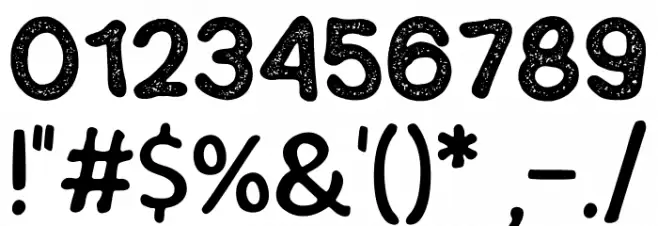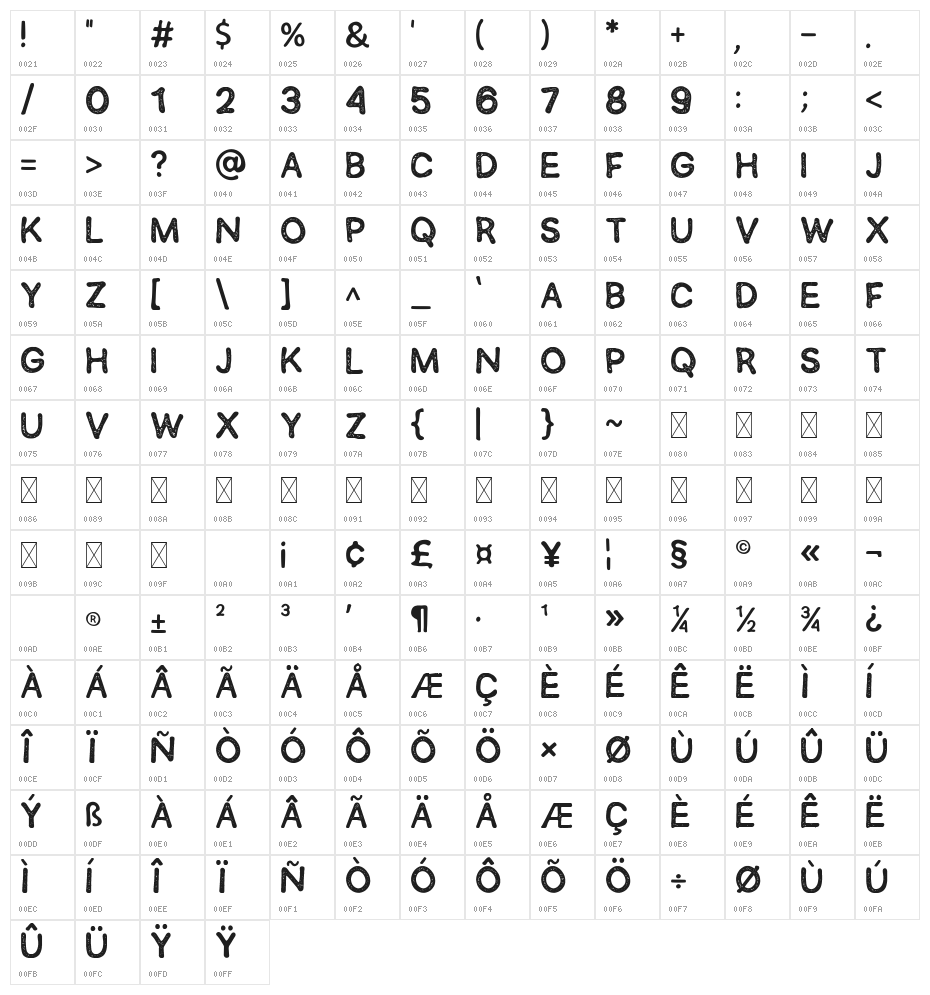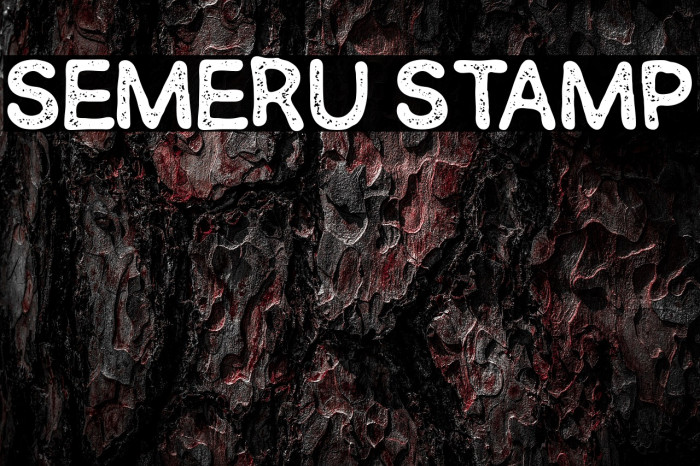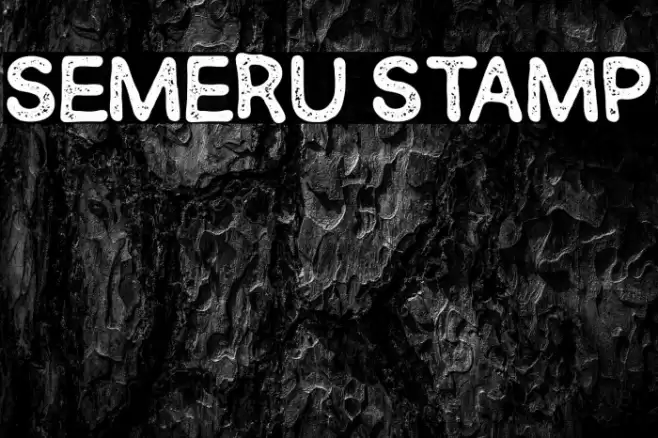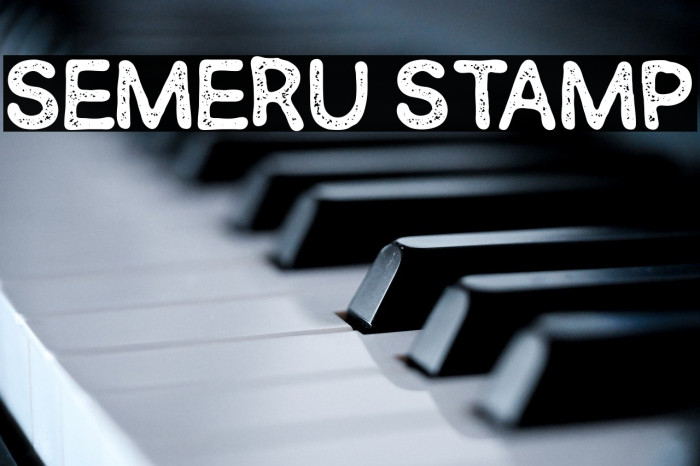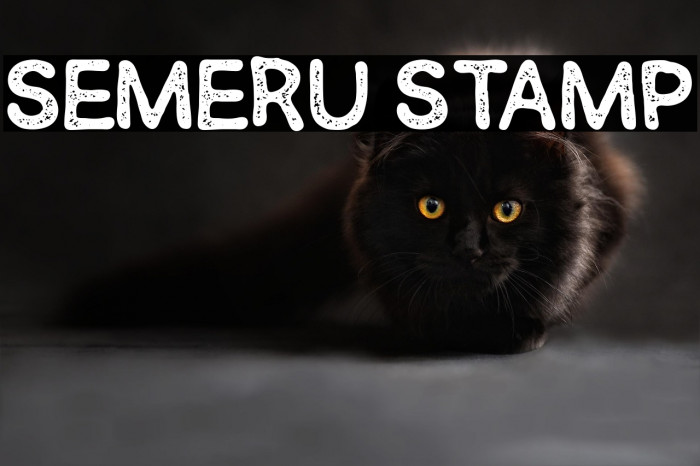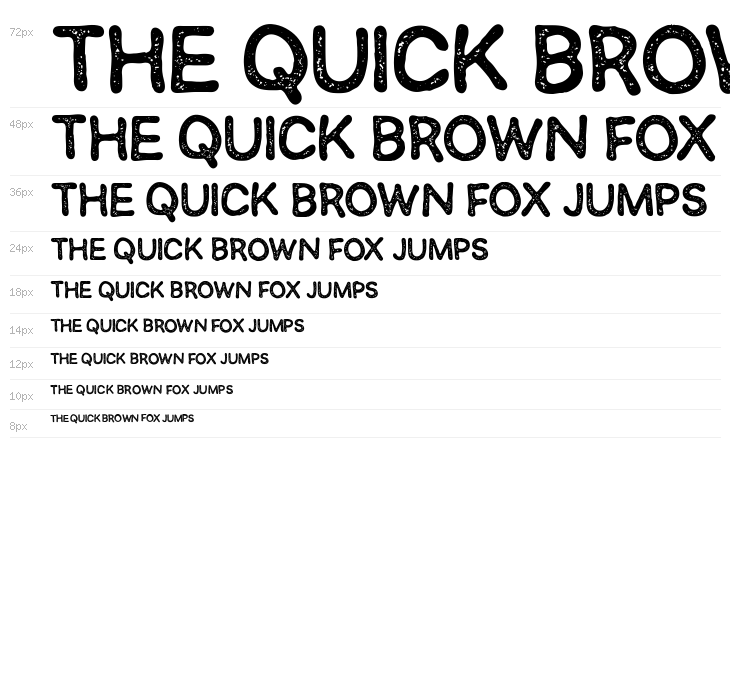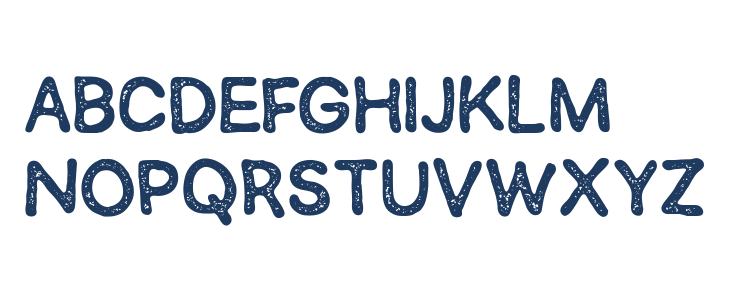
SEMERU Stamp Font
SEMERU Stamp Description
This font features a bold, playful style with a textured, stamp-like appearance. Each character is filled with a speckled pattern, giving it a rustic and handcrafted feel. The letters are rounded and slightly irregular, adding to the casual and informal aesthetic. The uppercase and lowercase letters maintain consistent design elements, while the numbers and special characters complement the overall look. This font is ideal for projects that require a fun and engaging visual impact, such as children's books, posters, or creative branding.
| Overall Style | Playful, Rustic, Handcrafted |
| Proposed Projects | Ideal for children's books, posters, creative branding, and any project needing a fun, engaging style. |